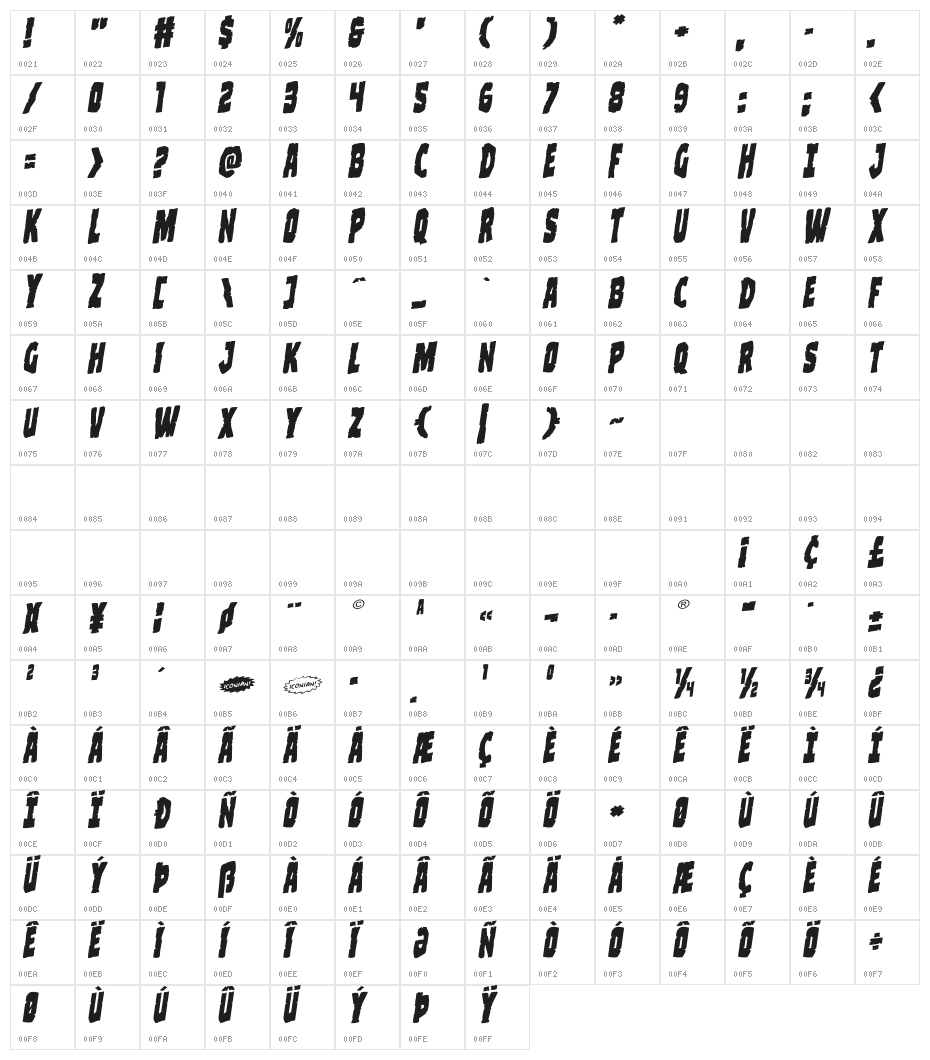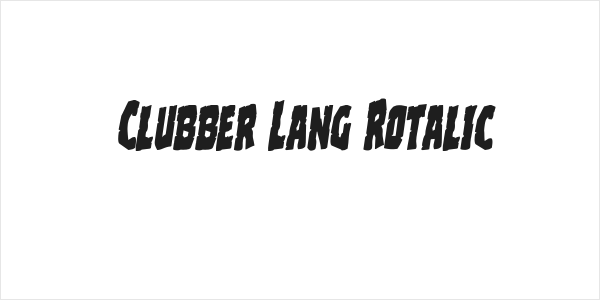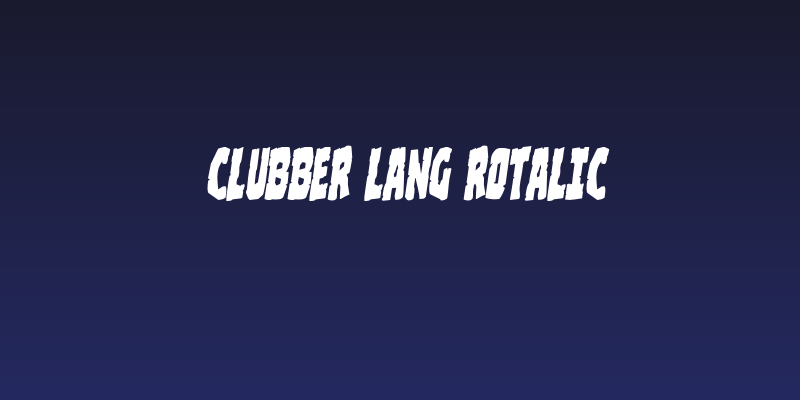
Clubber Lang Rotalic Font
Clubber Lang Rotalic Description
This font features a bold and dynamic style with a distinct slant, giving it an energetic and aggressive appearance. The characters are heavily stylized with sharp, angular edges and irregular shapes, creating a sense of movement and intensity. The uppercase letters are particularly striking, with a strong presence that demands attention. The numbers and special characters maintain the same bold and edgy design, ensuring consistency throughout the typeface. This font's unique style makes it ideal for projects that require a strong visual impact.